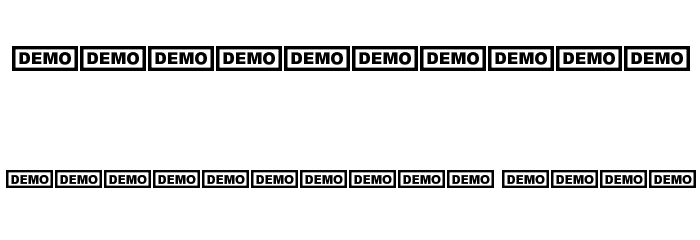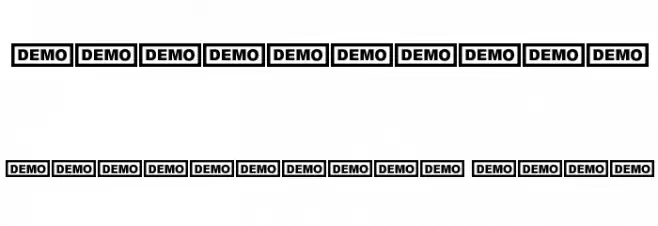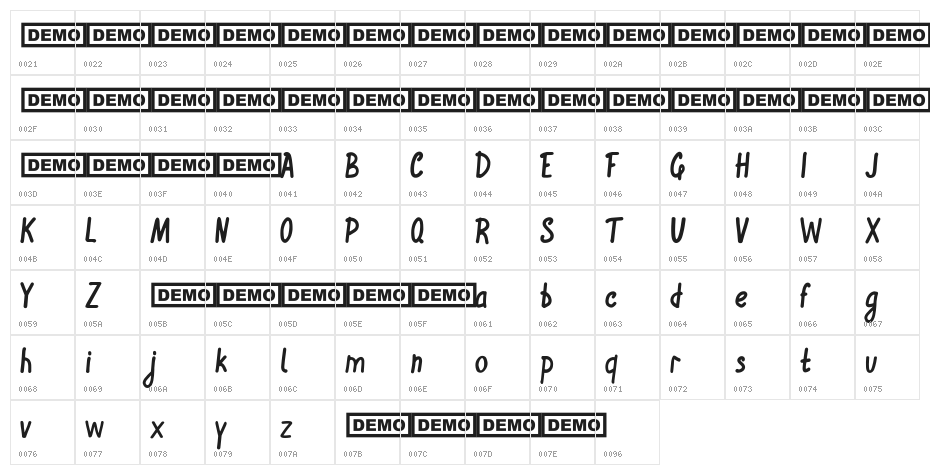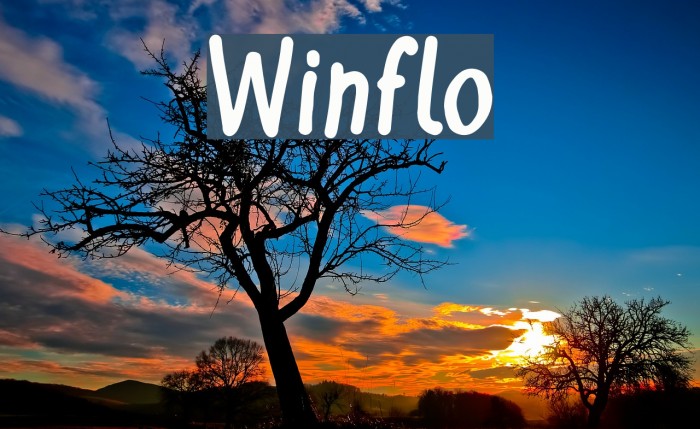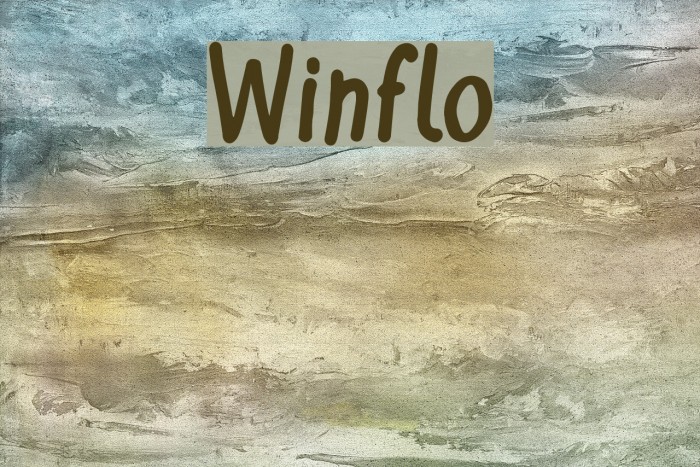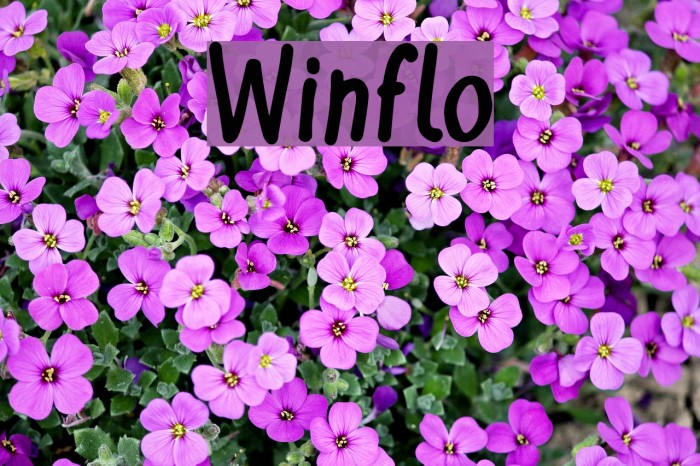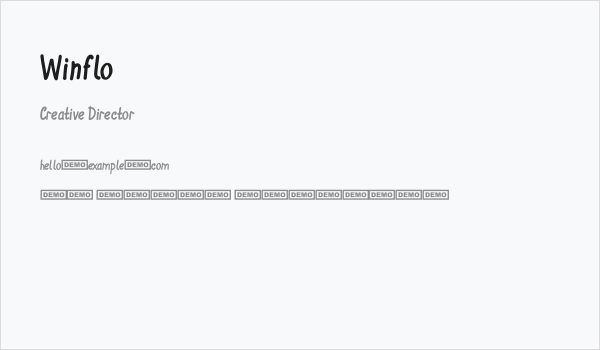
Winflo Font
Winflo Description
This font features a playful and casual handwritten style, characterized by its smooth, flowing curves and slightly irregular letterforms. The uppercase letters are bold and rounded, giving a friendly and approachable feel, while the lowercase letters maintain a consistent style with a touch of whimsy. The font's overall appearance is informal and relaxed, making it suitable for creative and fun projects. The characters are well-spaced, ensuring readability, and the strokes have a medium contrast, adding to the dynamic and lively nature of the design.
| Proposed Projects | Ideal for greeting cards, children's books, playful branding, and social media graphics. |